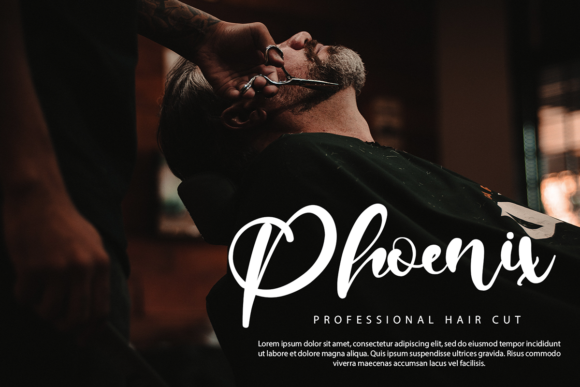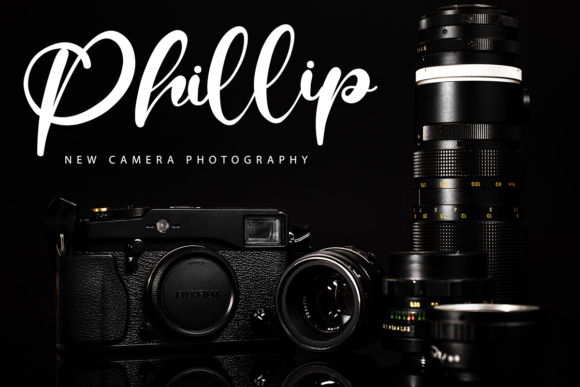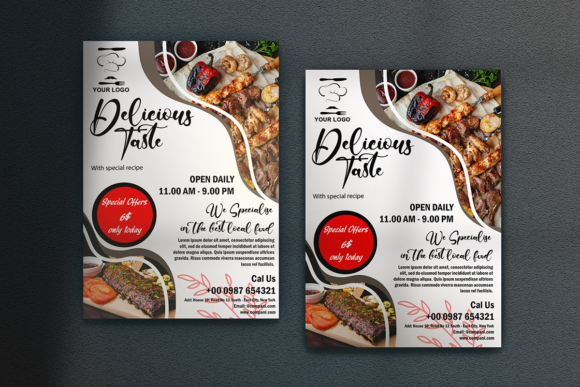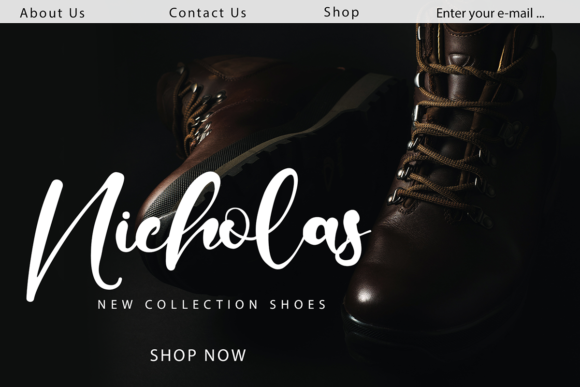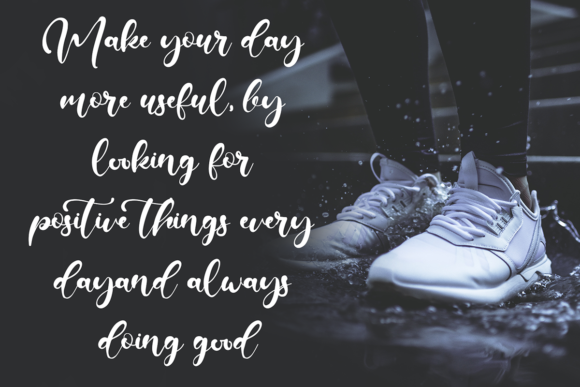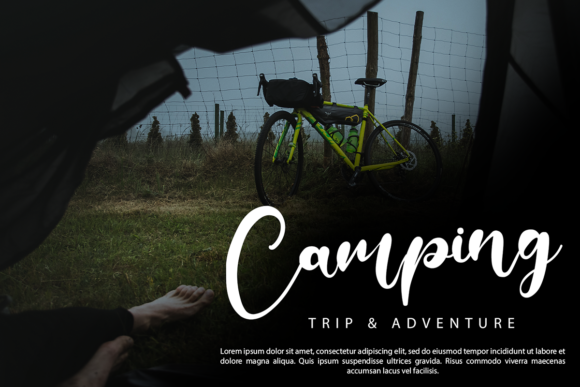
Sandy Rill Font
About Sandy Rill Font
Sandy Rill is a modern signature typeface, suitable for logotype, branding design, logo design, digital lettering arts, t-shirt/apparel, poster, magazine, signs, advertising design, and any design needs.